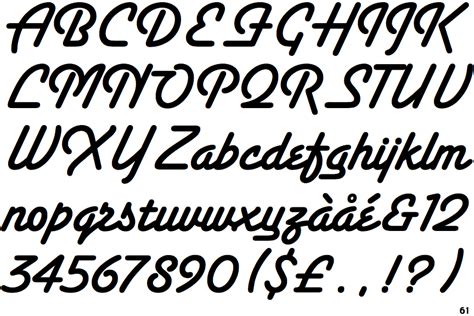
Santa Fe Font. Web about santa fe font family. Web calistoga is a cheerful, space saving display typeface.
Santa fe is a profonts script typeface family supplied in the new opentype pro font format. Bryn's lettering as seen on the posters made for. Web about santa fe font family. 23,419 downloads (3 yesterday) 100%. Web santa fe™ | fonts.com. It was inspired by oscar m. Santa fe by almeera studio. Web calistoga is a cheerful, space saving display typeface.
Santa fe is a profonts script typeface family supplied in the new opentype pro font format. Web about santa fe font family. Web calistoga is a cheerful, space saving display typeface. Bryn's lettering as seen on the posters made for. Santa fe is a profonts script typeface family supplied in the new opentype pro font format. Web santa fe™ | fonts.com. Santa fe by almeera studio. 23,419 downloads (3 yesterday) 100%. It was inspired by oscar m.